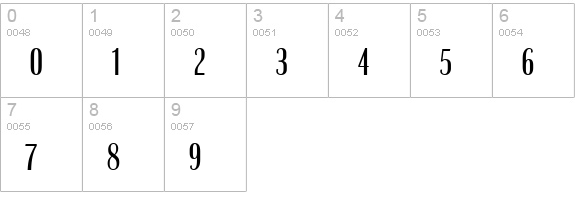
Bristol-Compressed-Medium-Regular Font Details
Bristol-Compressed-Medium-Regular is a balanced, medium-weight, condensed-width variant in the Bristol typeface family \xE2\x80\x94 well suited to sub-headlines, navigation, and balanced editorial work.
Bristol Compressed Medium Regular font is a versatile and modern typeface that strikes the perfect balance between sophistication and readability. With its sleek and streamlined design, this font is ideal for a wide range of projects, from branding to editorial design. The compressed letterforms exude a sense of elegance and professionalism, making it a popular choice for designers looking to make a statement. What sets Bristol Compressed Medium Regular font apart is that it is not only visually appealing but also free to download. Yes, you read that right! This high-quality font is freely available to download at FontsMarket.com, making it accessible to all designers, regardless of their budget constraints. So why wait? Elevate your designs with Bristol Compressed Medium Regular font today and make a lasting impression.